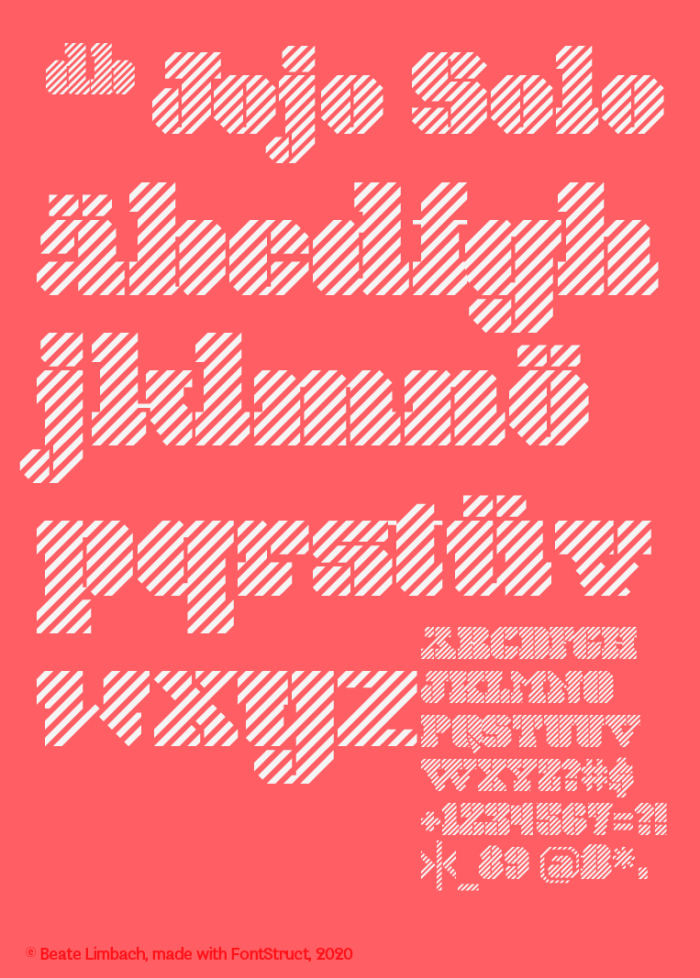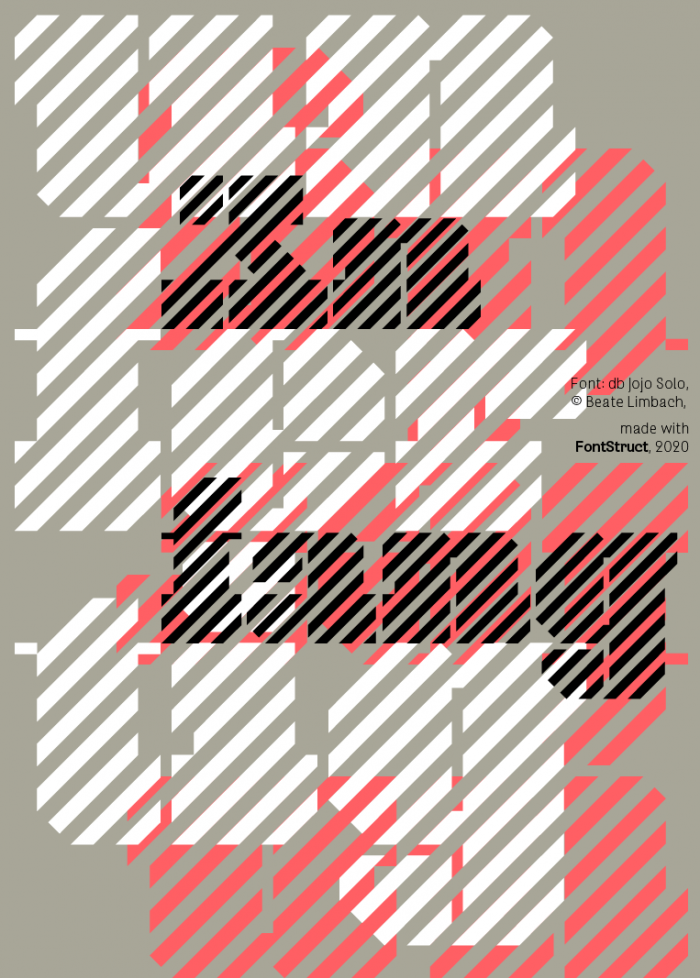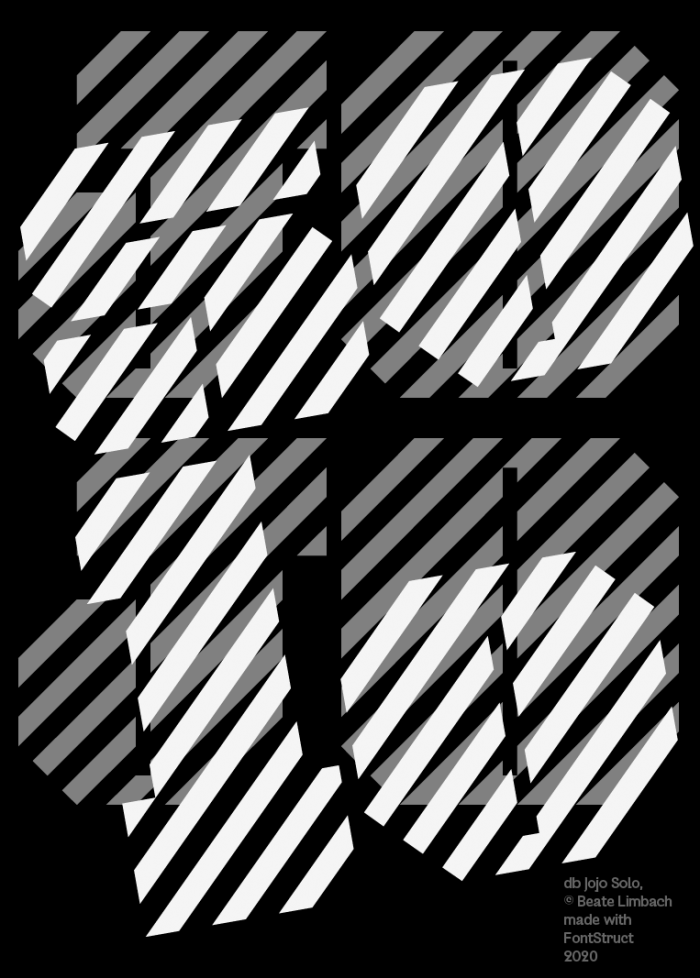
db Jojo Solo
Work in progress.
so nice!
very nice design!
Wow! 10/10+fav
This kinda reminds me of christmas wrapping paper with stripes…
Congratulations! FontStruct Staff have deemed your FontStruction worthy of special mention. “db Jojo Solo” is now a Top Pick.
I'm in love with diagonal lines, I have various fonts in my sketchbook where I use them. And I was also going to propose you the closure of the upper part of the A, it seems to me more consistent that way. Good work, Maestra, and congrats on the TP!
A b c d e f g h I j k l m n o p q r s t u v w x y z
1 2 3 4 5 6 7 8 9
These diagonals are really cool. A perfect font for posters.
You get my immediate 11/10 ! Because anything striped is op-art-ish eye-confuddling, fiendish to get right and hard to keep legible. I know because I made a striped design and it took ages to check all edges and spaces. Yours is simply wonderful.